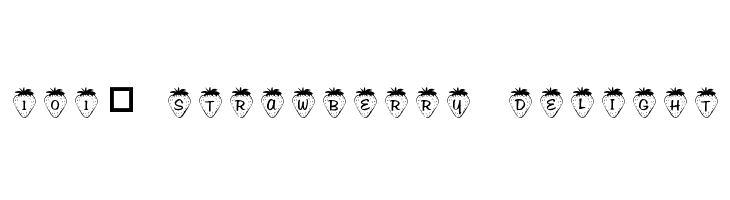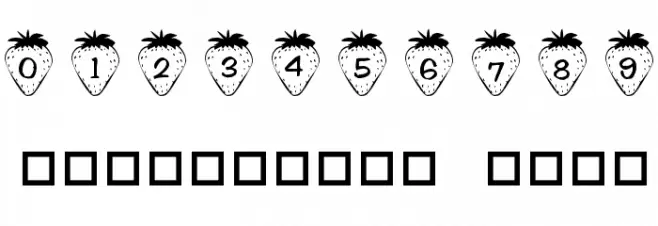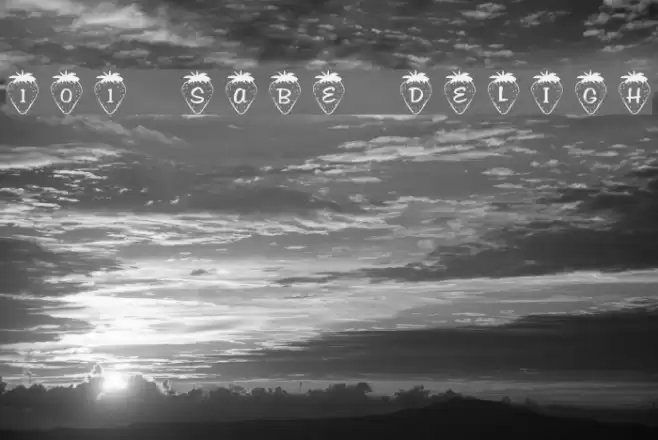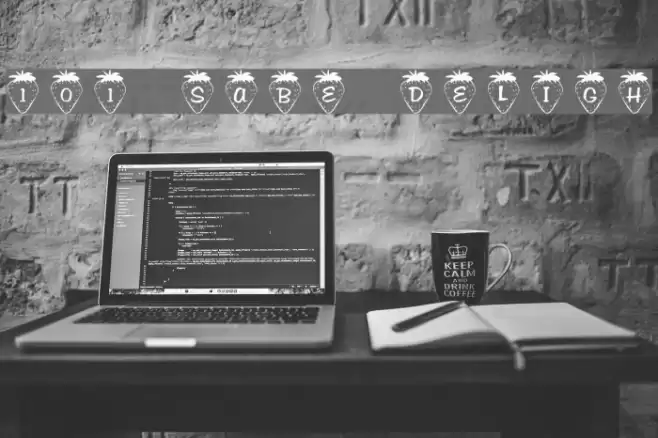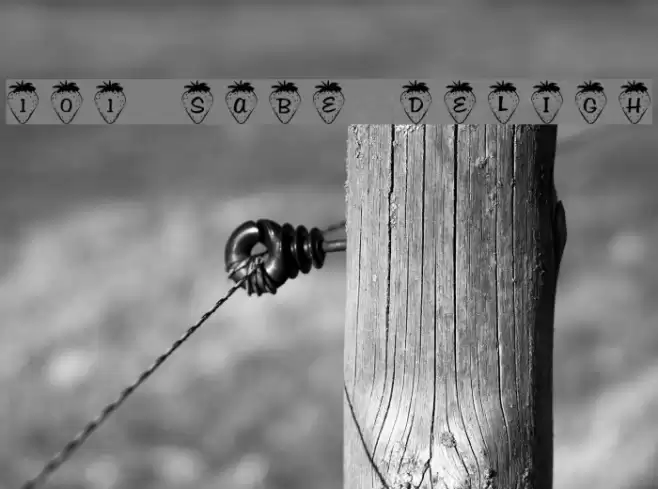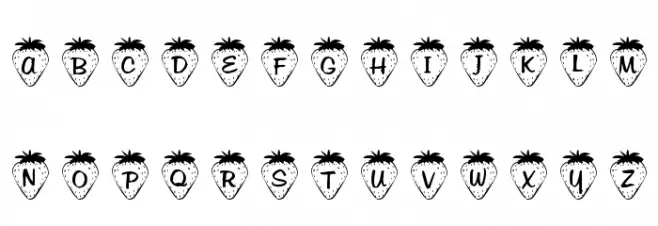
101! Strawberry Delight Font
| समग्र शैली | Whimsical, Playful |
| उपयोग का मामला | Logos, Invitations, Children's materials |
| सुझाए गए प्रोजेक्ट | Ideal for children's books, playful branding, party invitations, and any project needing a fun, whimsical touch. |